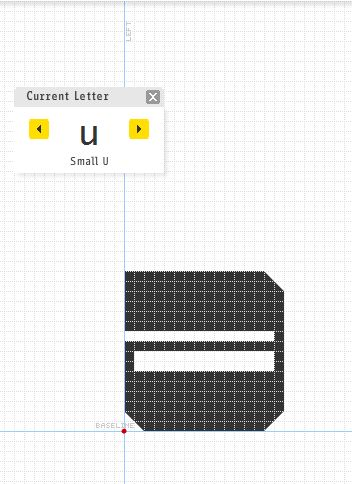
I like this quirky, individulistic design.
You have set yourself a bit of a problem with the a, g, e and s as it is difficult to achieve the same white space a the other glyphs.
The g could easily be modified to be consistan simply by bringing the descender down (to the same level as the j) ... you would then need to make the descender of the y the same.
With the a, e and s you could use half bricks to gain a bit more white space - I suspect this would not notice in most sizes.
I have attempted a few alternatives:
Thanks for the suggestions, p2pnut. I have added alternative e and fix some letters
I've download this font and the letter u, v, w changes to letter a. Why is this happen?? I re-edit it but nothing happens. It changes to the letter a again!?
I downloaded this and the same thing happened. I then cloned it and looked at the u, v, w and they showed up as a's. Then I went into Preview and back again ... the u, v, and w were normal again!
Aha, Fixed!